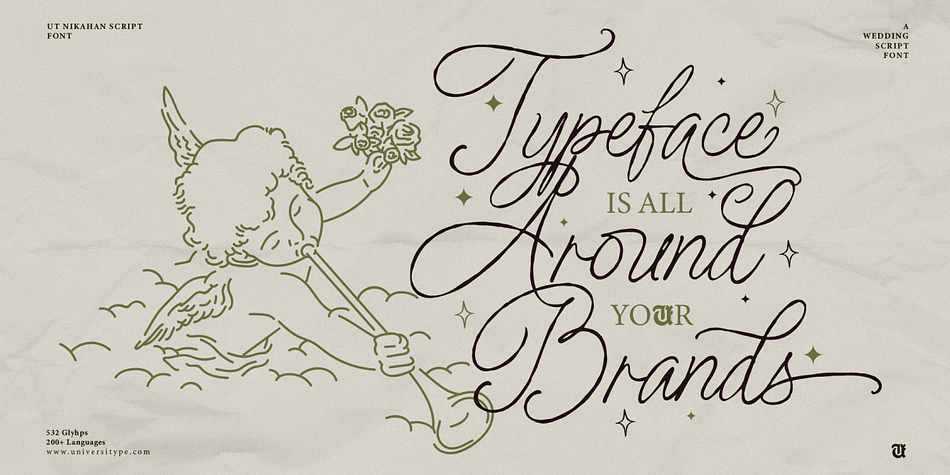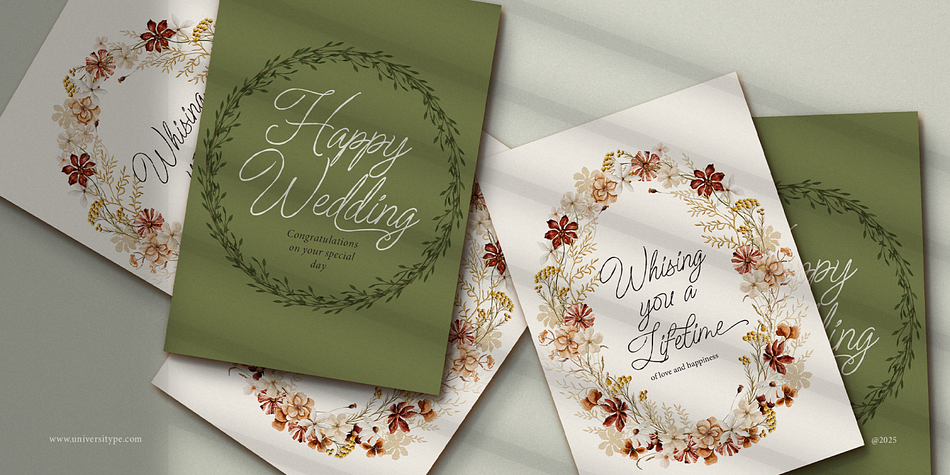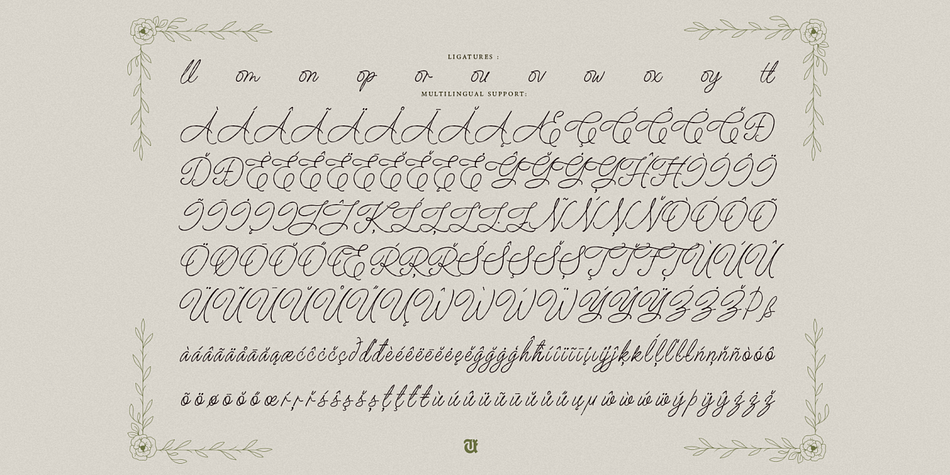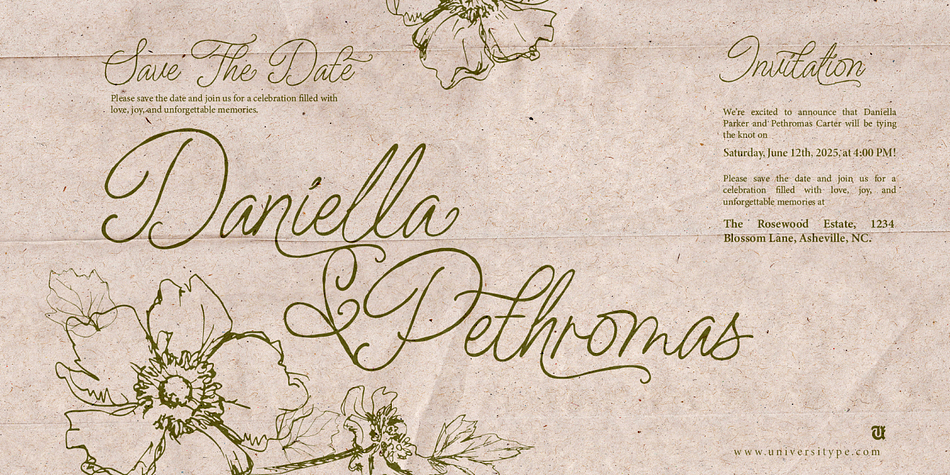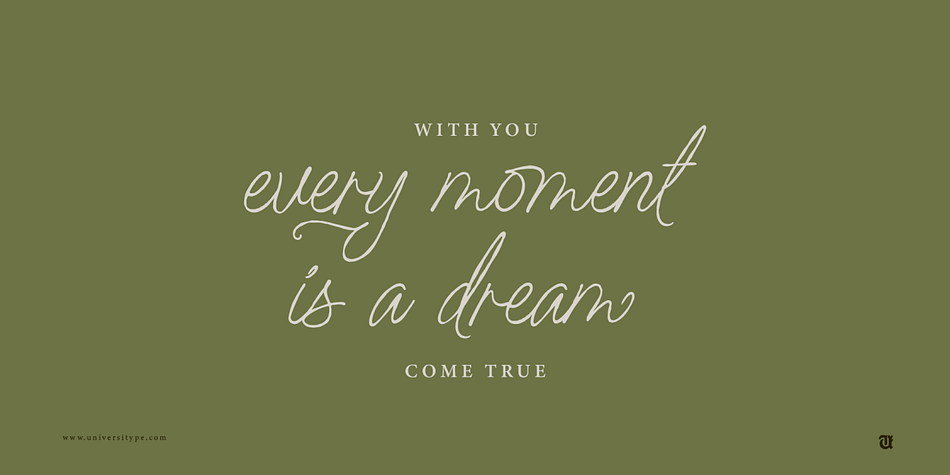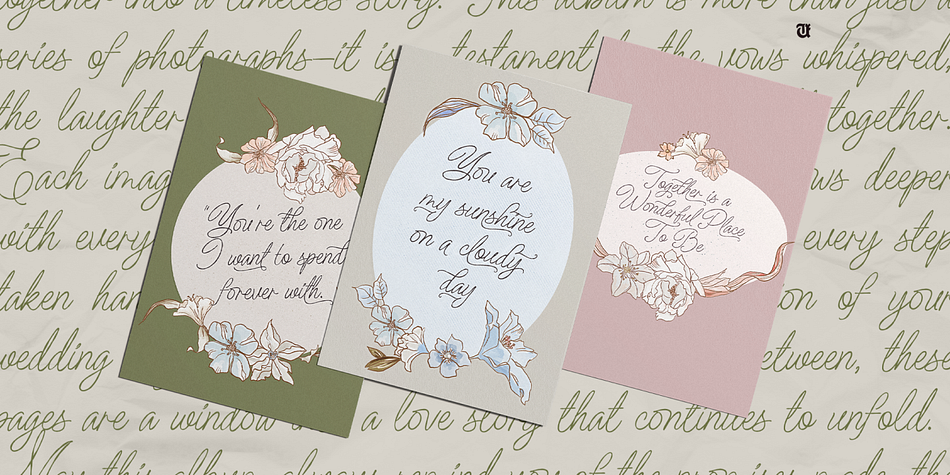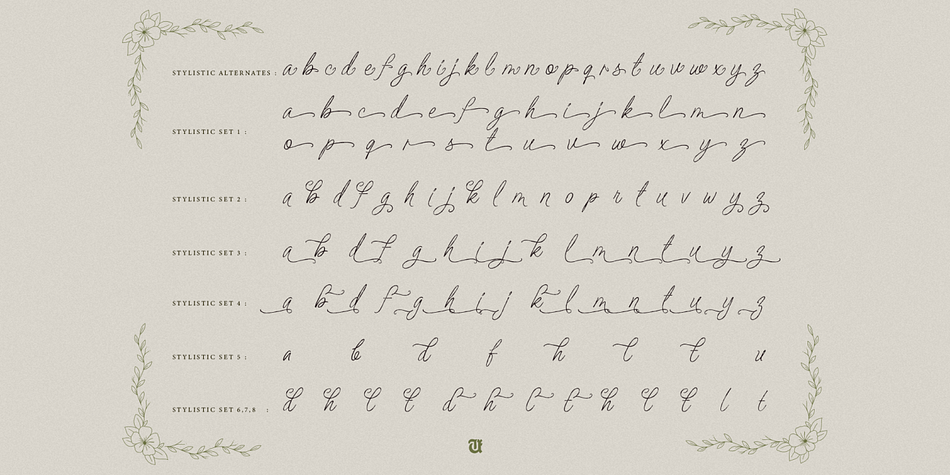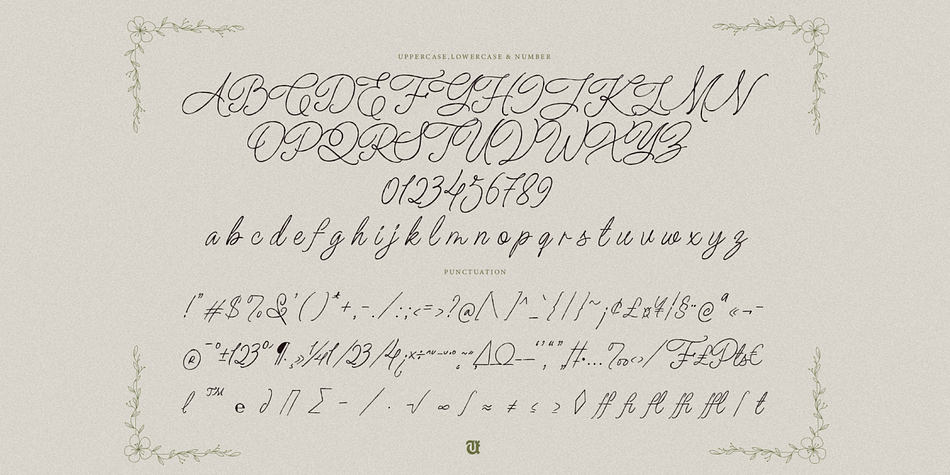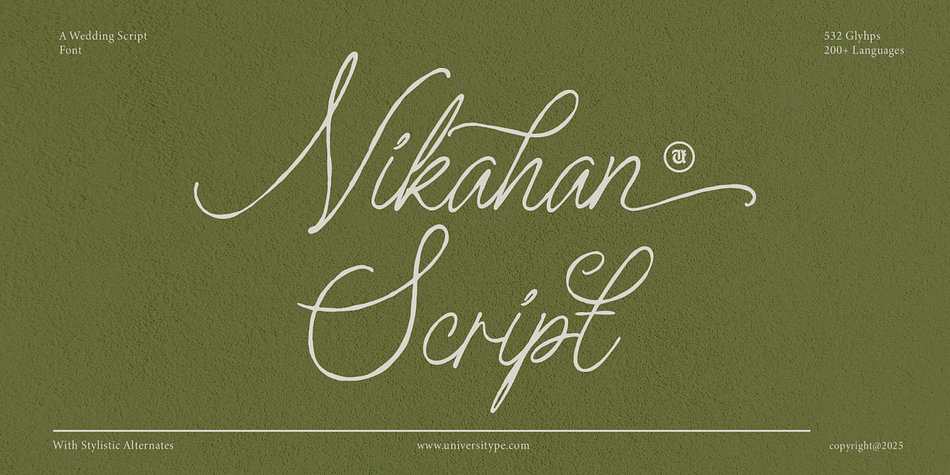
UT Nikahan Script Font
UT Nikahan Script, a beautiful wedding font with all the elegance of calligraphy. The flowing lines and fancy details make it perfect for creating romantic wedding invitations and stationery that will really wow your guests.
This font is great for wedding planners, designers, and couples who want to add a bit of extra elegance and personal touch to their wedding stuff like invitations, save-the-dates, programs, and other wedding papers.
Key Features:
* Stylistic Alternates: There are different styles for each letter so you can mix and match to create a look that’s perfectly you.
* Multilingual Support: It works in over 200 languages, so it’s super versatile no matter where you’re getting married.
* Extended Glyph Set: With 532 glyphs, you’ve got tons of characters and symbols to play with.
* Ligatures: Some letters automatically connect in a fancy way, making the text look more natural and flowing.
Inspiration Behind UT Nikahan Script:
The font was inspired by traditional calligraphy and handwriting, capturing that special love and commitment feeling that’s at the heart of weddings. It’s a nice mix of classic elegance and modern simplicity, so it works for both traditional and contemporary wedding styles.
Usage Suggestions:
* Wedding Invitations: Make invitations that really stand out and make a romantic impression on your guests.
* Save-the-Date Cards: Use it for your save-the-dates to announce your special day in style.
* Wedding Programs: Design programs that match your wedding theme perfectly.
* Personalized Stationery: Create thank-you notes, menus, and other wedding stationery that shows off your personal style.
Technical Details:
* Features: Includes Stylistic Alternates, Ligatures, and works with multiple languages
* Glyphs: 532 total glyphs to choose from
* Languages Supported: Works with over 200 languages
UT Nikahan Script offers the perfect blend of elegance and personalization to make your special day truly unforgettable. Whether you’re a professional designer or a couple planning your wedding, this font will help you create beautiful, memorable pieces for your big day.